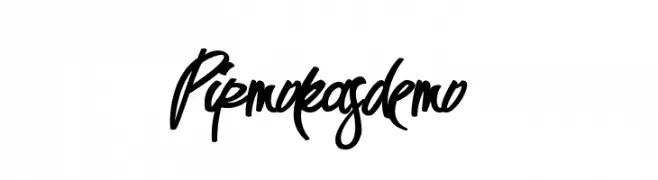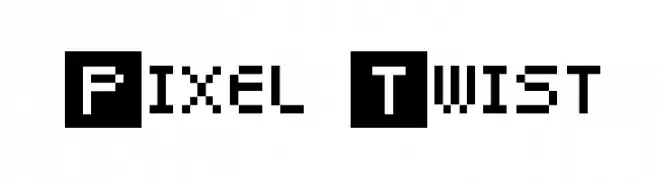
( Reiner Lomanto )
A decorative serif font with sharp serifs and elegant curves, blending traditional and modern styles.
( Shierly Caroline )
A geometric, angular font with sharp edges and a modern style.
( Simon Murdoch )
A bold, geometric font with a unique cut-out style and high contrast.
( Simon Murdoch )
A bold, pixelated font ideal for retro digital designs.
( Simon Murdoch )
A bold, geometric font with a modern, urban aesthetic.
( Virgilio Cortez - www.behance.net/vcortezstudio )
A bold, flowing script font with dynamic, interconnected strokes.
( Virgilio Cortez - www.behance.net/vcortezstudio )
An elegant serif font with decorative elements and balanced strokes.
( roci - Rokas Cicenas - www.roci.lt/ )
A bold, energetic handwritten font with fluid strokes.
( Akkades )
A modern, geometric sans-serif font with clean lines and balanced proportions.
( CRU-Dissaramas - artd2304-dissaramas-5411307324.blogspot.com/ )
A bold, italic script font with decorative swirls and loops.